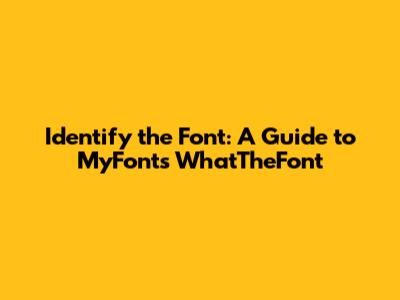
- Go to the MyFonts WhatTheFont website. Just type "MyFonts WhatTheFont" into your search engine, and you'll find it easily.
- Upload your image. Click the "Click to upload image" button and select the image from your computer. Alternatively, you can paste the URL of the image in the provided field.
- Identify the characters. WhatTheFont will attempt to automatically identify the characters in the image. If necessary, adjust the character boxes by dragging the corners to ensure they accurately frame each letter. You can also manually type in the characters if the automatic identification isn't quite right.
- Click the arrow. Once you're satisfied with the character identification, click the arrow button to proceed to the font matching stage.
- Review the results. WhatTheFont will display a list of potential font matches. Compare the previews with the text in your image to find the best match.
- Explore options. If you find the exact font, great! If not, WhatTheFont will also suggest similar fonts that might work for your project. This is super useful when you're looking for a font that's in the same ballpark but not necessarily the exact match.
- Fontspring Matcherator: Similar to WhatTheFont, Matcherator allows you to upload an image and identify fonts. It's known for its accuracy and speed.
- WhatFont is a browser extension that you can use to identify fonts directly on websites. Simply click the extension icon, hover over the text, and WhatFont will tell you the font name.
- Fonts.com Font Identifier: This tool is another solid option for identifying fonts from images. It offers a clean interface and a comprehensive font database.
- Adobe Font ID: Integrated into Adobe Photoshop, this tool can identify fonts directly within your design files, streamlining the workflow for creative professionals.
Have you ever stumbled upon a captivating design, logo, or piece of text and wondered, "What font is that?" It's a common question in the design world, and thankfully, there's a fantastic tool called MyFonts WhatTheFont that can help you identify those elusive typefaces. This guide will walk you through everything you need to know about using MyFonts WhatTheFont to discover the fonts you're looking for.
What is MyFonts WhatTheFont?
MyFonts WhatTheFont is an online font identification tool that allows you to upload an image or provide a URL, and it will analyze the text within the image to identify the font used. It's like a detective for fonts, using advanced algorithms and a vast database to match the characters in your image with fonts in its library. Guys, this tool is a game-changer for designers, marketers, and anyone curious about typography. Whether you're trying to recreate a specific design or simply appreciate the artistry of fonts, WhatTheFont is an invaluable resource. It's a user-friendly platform that simplifies the often complex process of font identification. The tool’s effectiveness is rooted in its sophisticated algorithms, which can analyze intricate details of letterforms, including serifs, stroke thickness, and overall shape, to pinpoint the font with remarkable accuracy. This technology enables users to bypass the tedious task of manually sifting through font libraries, saving considerable time and effort. Moreover, WhatTheFont is not limited to identifying common fonts; it also has the capability to recognize more obscure and custom typefaces, expanding its utility for a diverse range of design projects. Its database is continually updated, incorporating new fonts and variations, which ensures the tool remains a reliable and comprehensive resource for font enthusiasts and professionals alike. The platform's integration with MyFonts also provides a seamless pathway for purchasing and downloading identified fonts, streamlining the creative workflow. This feature is particularly beneficial for designers who need to acquire the font for commercial use or to maintain consistency across different projects. WhatTheFont's accessibility and ease of use have made it a staple in the design community, fostering a deeper appreciation for typography and its role in visual communication.
How to Use MyFonts WhatTheFont
Using MyFonts WhatTheFont is a straightforward process. First, you'll need an image of the text you want to identify. This could be a screenshot, a photograph, or any other image file containing the text. The clearer the image, the better the results will be. You can either upload the image directly to the WhatTheFont website or provide a URL if the image is hosted online. Once you've uploaded the image, WhatTheFont will automatically detect the text and attempt to identify individual characters. If the automatic detection isn't perfect, don't worry! You can manually adjust the character boxes to ensure each letter is correctly identified. This manual adjustment feature is crucial for dealing with complex images or fonts with unusual letterforms. The accuracy of font identification heavily relies on the proper isolation and recognition of each character, so this step ensures the algorithm has the best possible input to work with. After you’ve refined the character selections, the tool will then present a list of potential font matches. Each match includes a preview of the font, allowing you to compare it directly with the text in your image. The list is typically ordered by the closest match, making it easier to find the exact font or a very similar alternative. For designers, this is where the magic happens – the ability to quickly find a font that matches the aesthetic and feel of a design, ensuring consistency and professionalism in their work. Moreover, WhatTheFont often provides links to purchase the identified font directly from MyFonts, which simplifies the licensing process and ensures designers have the legal rights to use the font in their projects. This seamless integration of identification and acquisition makes WhatTheFont an indispensable tool for anyone working with typography.
Step-by-Step Guide
Tips for Best Results
To get the most accurate results from MyFonts WhatTheFont, there are a few things you can keep in mind. First, the quality of your image matters. A clear, high-resolution image will yield better results than a blurry or pixelated one. Try to use images with well-defined text and good contrast between the text and the background. Second, the size of the text matters. WhatTheFont works best with text that is large enough to be easily analyzed. If the text is too small, it may be difficult for the tool to accurately identify the characters. Third, the complexity of the font matters. Some fonts, especially highly stylized or decorative ones, can be more challenging for WhatTheFont to identify. However, even in these cases, the tool can often provide a close match or suggest similar fonts. Lastly, consider the angle and distortion. If the text in your image is skewed or distorted, it can affect the accuracy of the results. Try to use images where the text is as straight and undistorted as possible. By paying attention to these factors, you can significantly improve your chances of finding the font you're looking for. And remember, guys, sometimes it takes a little tweaking and manual adjustment to get the perfect match, so don't be afraid to experiment with different images and settings. The key to success with WhatTheFont is patience and persistence. Understanding these nuances will empower you to leverage WhatTheFont effectively, turning the sometimes daunting task of font identification into a streamlined and satisfying experience.
Alternative Font Identification Tools
While MyFonts WhatTheFont is a top-notch tool, it's always good to know about other options. Here are a few alternative font identification tools you might want to check out:
Each of these tools has its strengths, and it's worth exploring them to find the one that best fits your needs. Some tools may be better at identifying certain types of fonts, while others may offer unique features or integrations. The availability of these alternatives ensures that designers and font enthusiasts have a diverse set of resources to rely on, making the process of font identification more accessible and efficient. Ultimately, the best tool is the one that consistently delivers accurate results and seamlessly integrates into your workflow.
Why Identifying Fonts Matters
Why bother identifying fonts in the first place? Well, understanding typography is crucial for creating visually appealing and effective designs. The font you choose can significantly impact the message you're trying to convey. A playful font might be perfect for a children's book, but it wouldn't be suitable for a professional business report. Similarly, a classic serif font might lend credibility to a legal document, while a modern sans-serif font could give a tech startup a cutting-edge vibe. Moreover, identifying fonts allows you to maintain consistency across your brand. If you've established a specific visual identity, using the same fonts across all your materials reinforces your brand recognition. Think about the iconic fonts used by brands like Coca-Cola or Apple – they're instantly recognizable and contribute to the overall brand image. Knowing how to identify fonts also opens up a world of creative possibilities. You can analyze designs you admire, discover new fonts, and incorporate them into your own projects. It's a form of inspiration and learning that can elevate your design skills. Furthermore, in a collaborative design environment, being able to accurately identify and communicate font choices is essential. It ensures that everyone is on the same page and that the final product aligns with the intended vision. Whether you're a seasoned designer or just starting out, developing a keen eye for typography is a valuable skill, and tools like MyFonts WhatTheFont make this process more accessible than ever. By understanding the nuances of font identification, you can make more informed design decisions and create visuals that truly resonate with your audience. So, next time you see a font you love, don't just admire it – identify it and add it to your design toolkit.